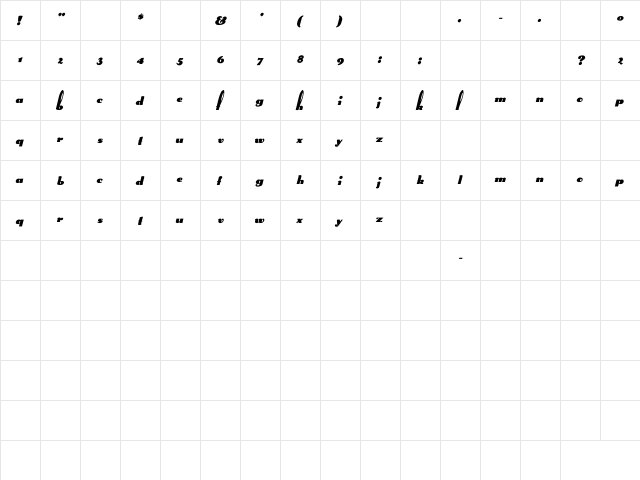
Rabbit italic Italic
Design Context for Rabbit italic Typeface
Rabbit italic is a composed and adaptable typeface that performs quietly and consistently across a wide range of design contexts. The slanted form adds forward momentum and visual energy.
Pro Tip: Use Rabbit italic for emphasis, pull quotes, and subheadings where its slanted energy can add rhythm to the layout.